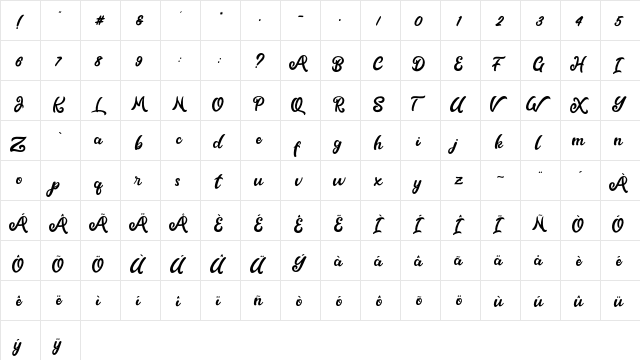
Metal Ink Regular
Design Context for Metal Ink Typeface
Metal Ink is a composed and adaptable typeface that performs quietly and consistently across a wide range of design contexts.